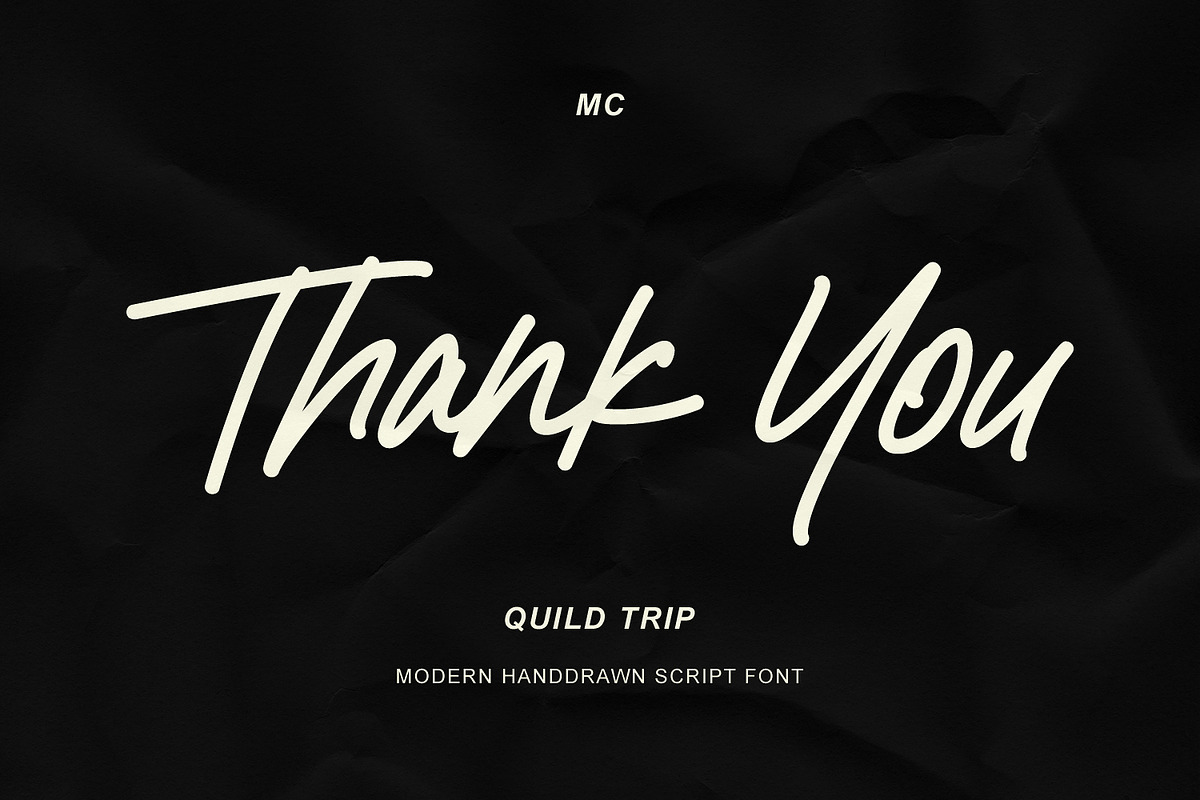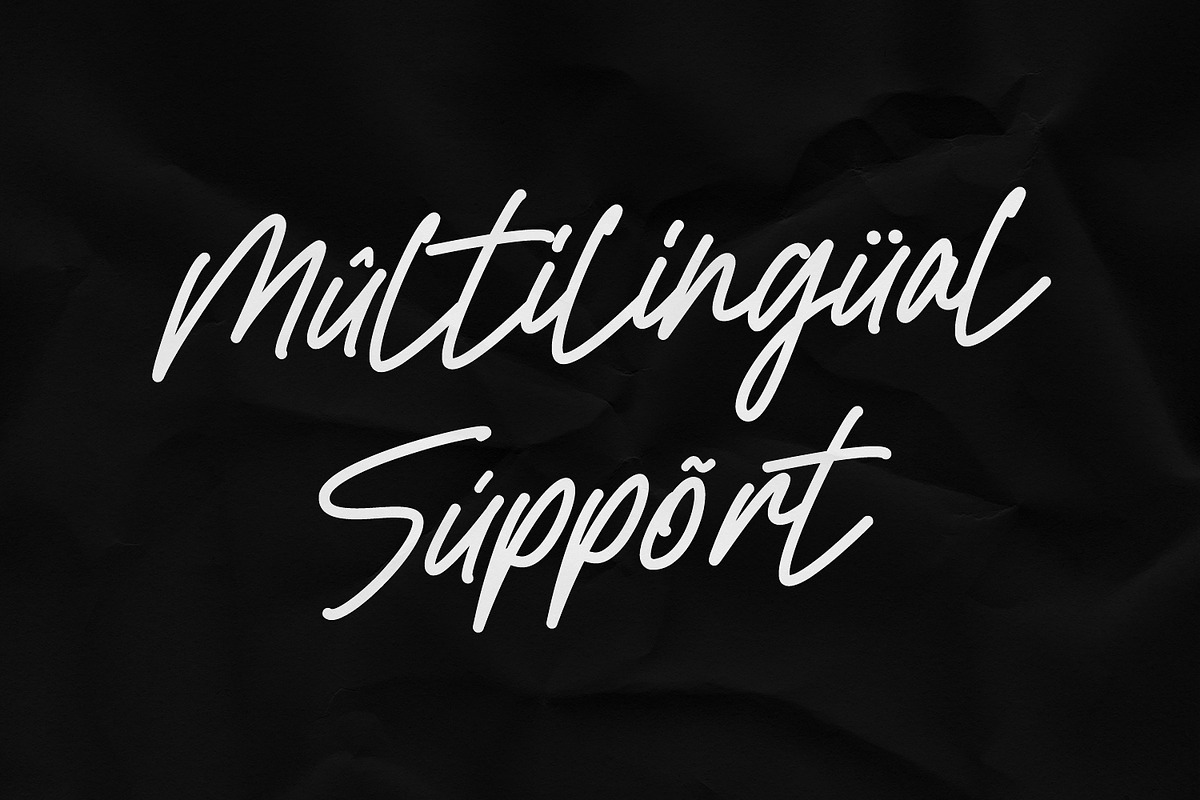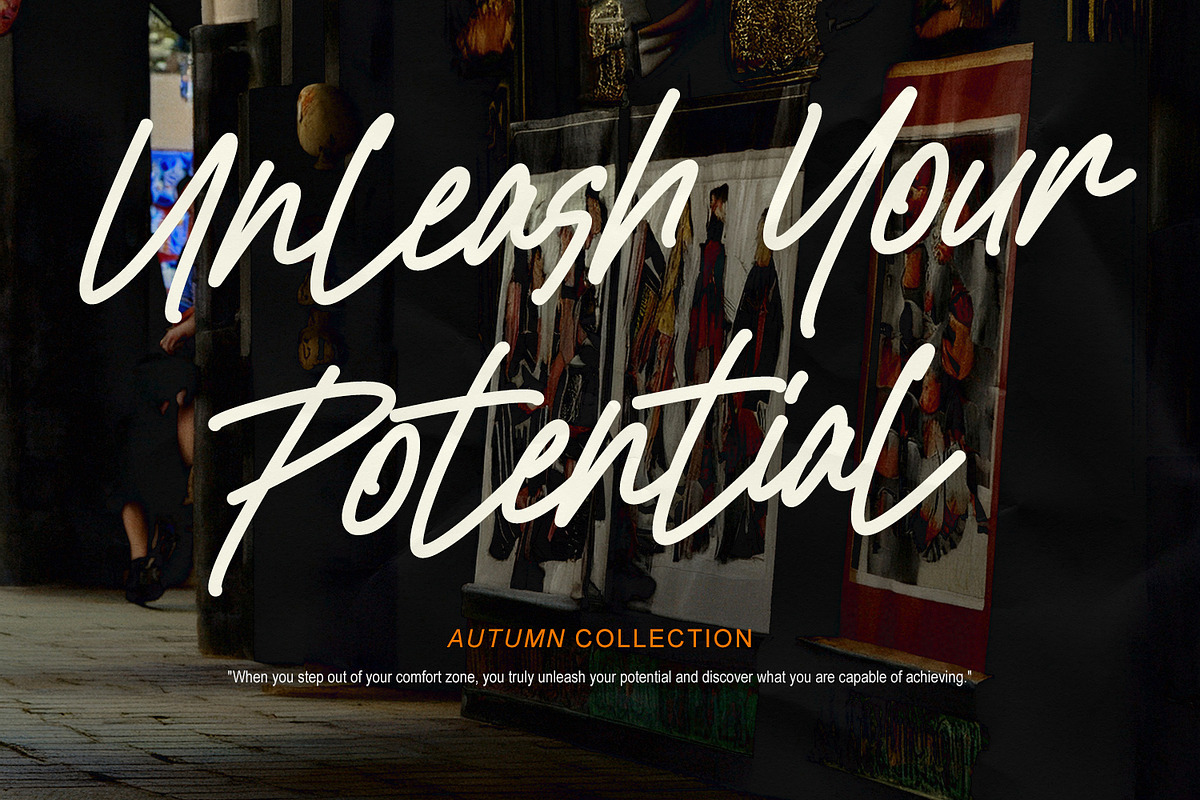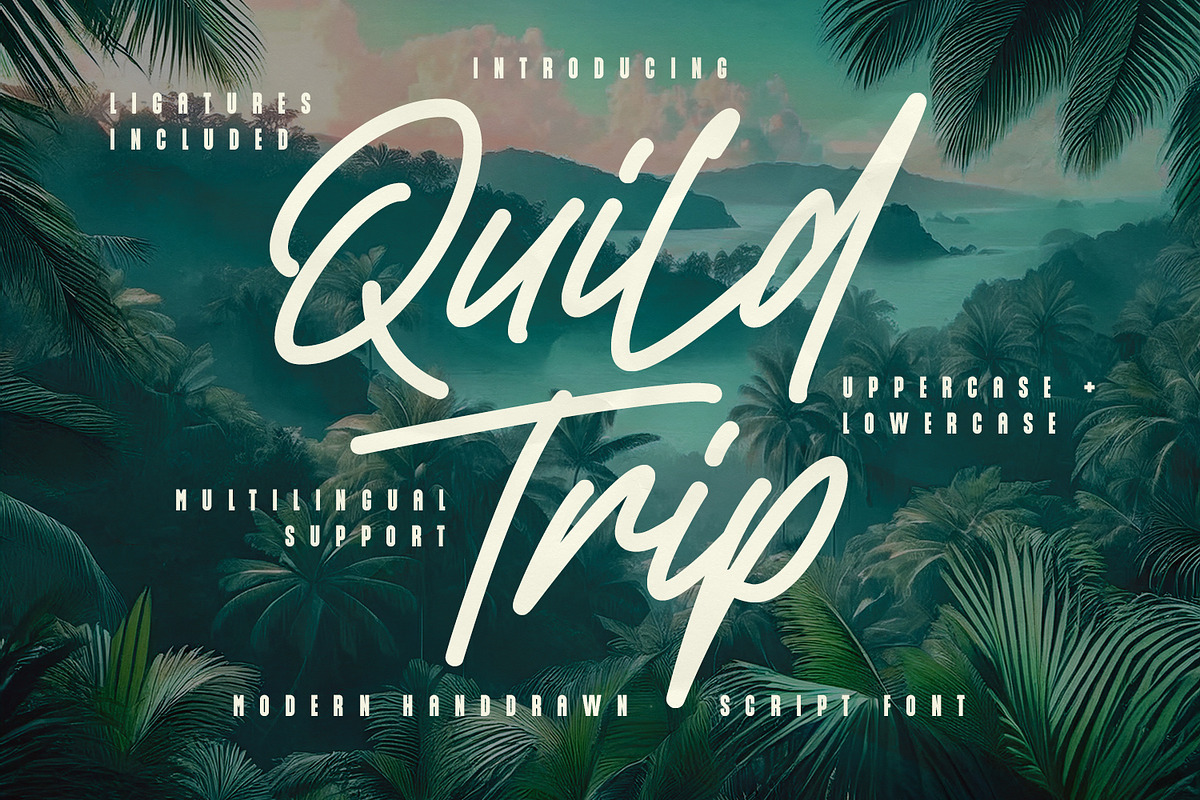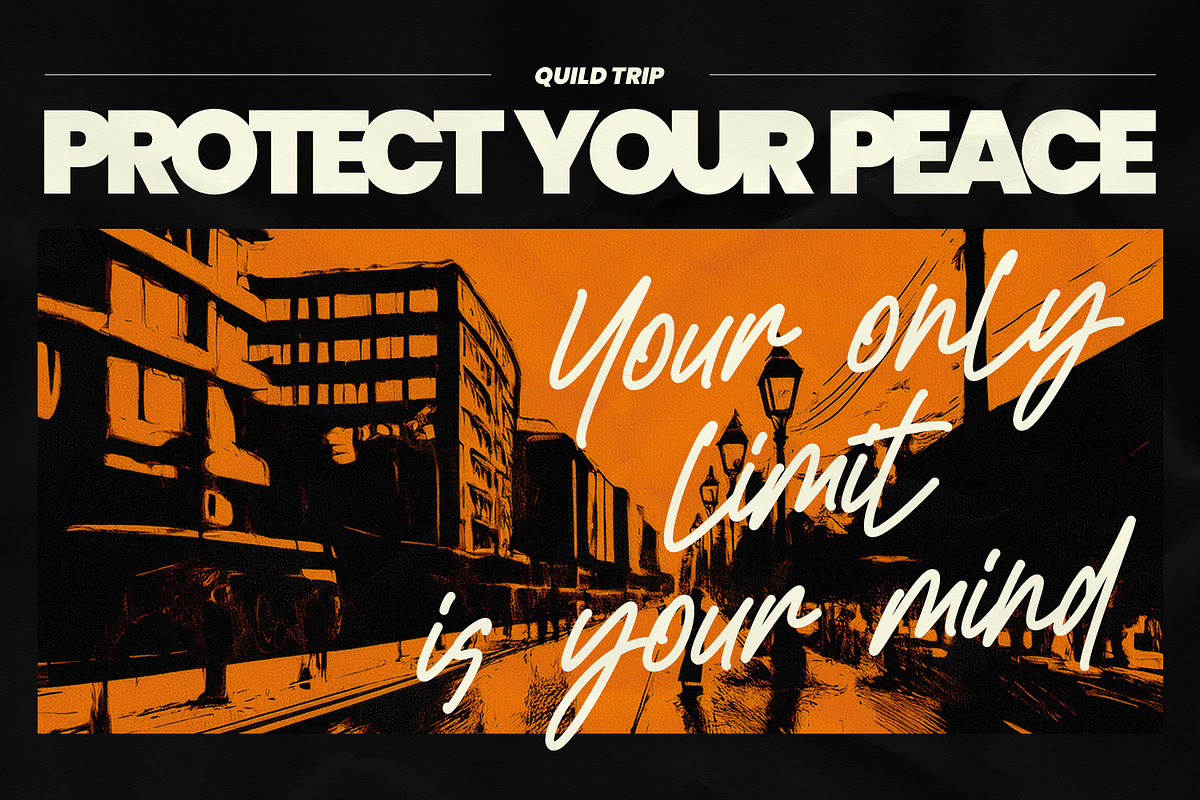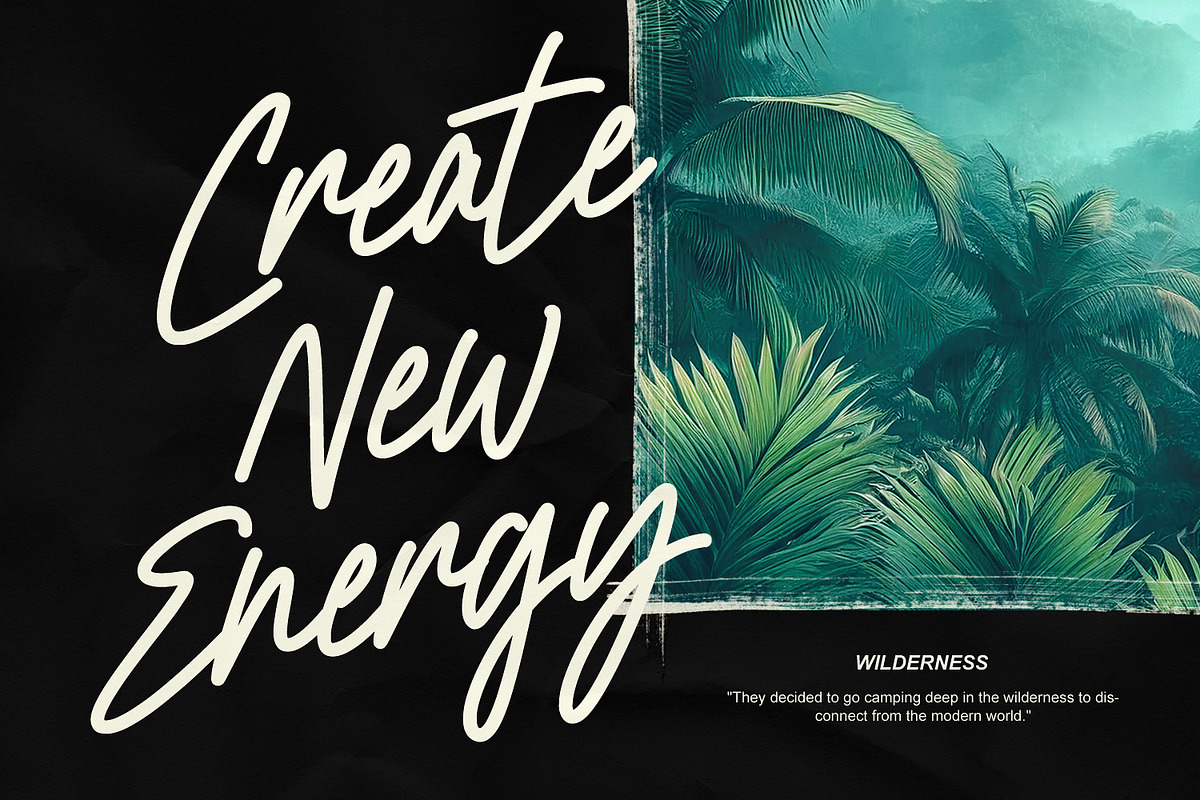
Quild Trip Handdrawn Script Font
Quild Trip is a dynamic handdrawn script font designed with expressive strokes and organic flow. Featuring natural connections, ligatures, and complete accent characters, this typeface captures an authentic handwritten rhythm that brings warmth and creative energy to modern visual compositions. Its smooth lines and distinctive character shapes make it an engaging choice for projects that require a genuine handmade feel.
This versatile script typeface excels in a wide array of design applications, including brand identity design, editorial layouts, promotional banners, packaging, visual quotes, digital graphics, and merchandise artwork. With full multilingual support alongside uppercase and lowercase character sets, Quild Trip offers complete flexibility for crafting impactful visual narratives across global media platforms.
- Numbers, Punctuation, and Symbols